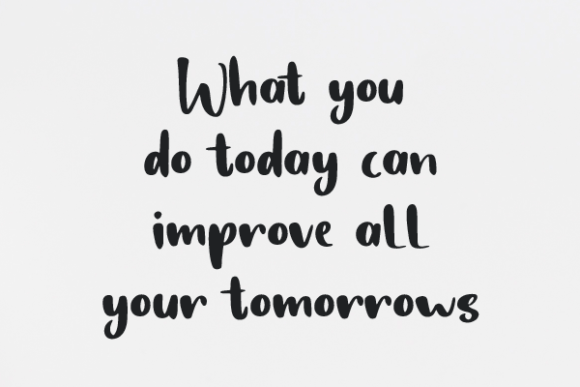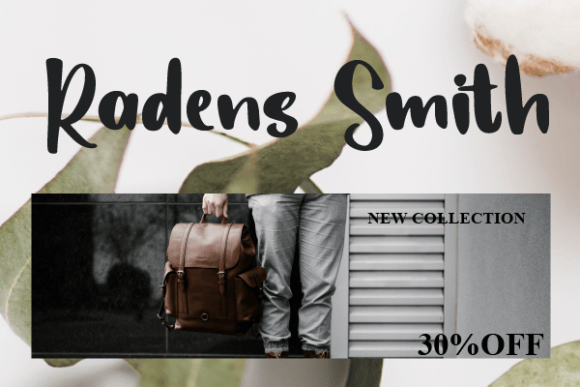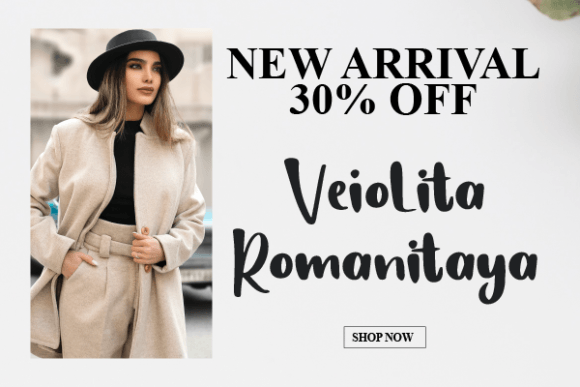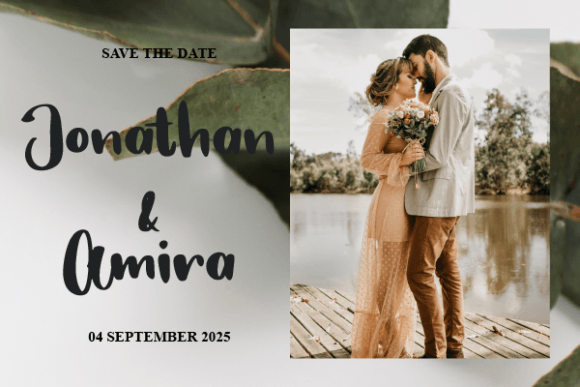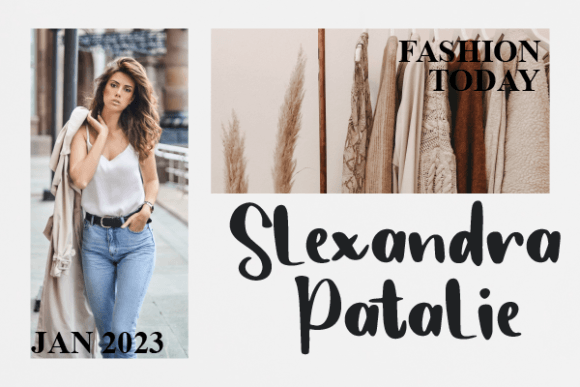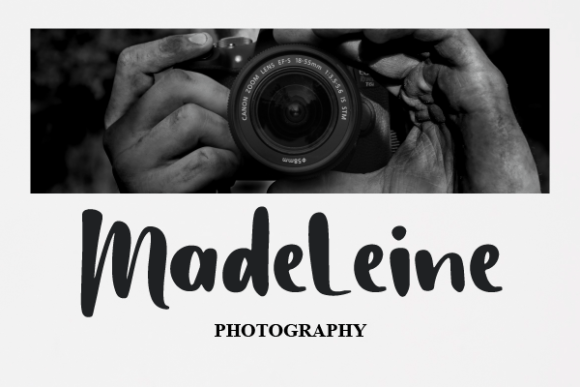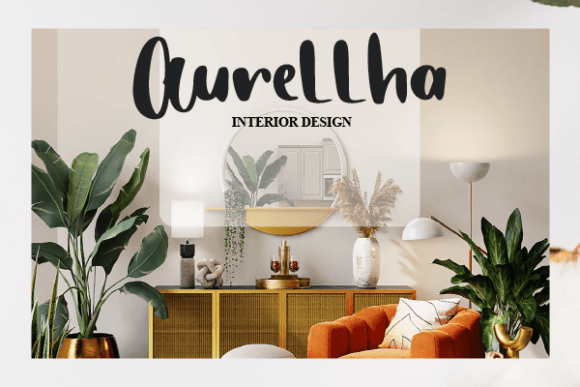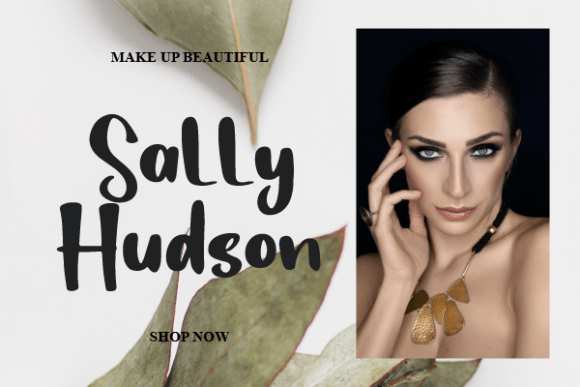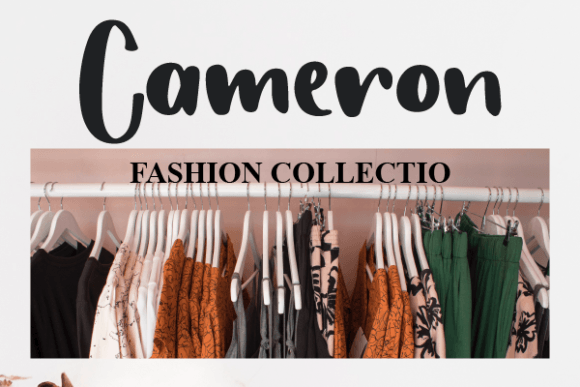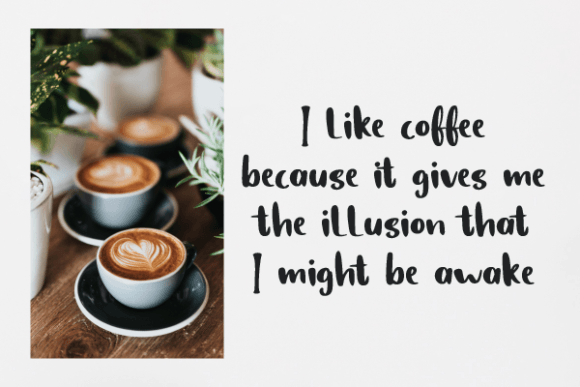
Gregory Hartigan
About Gregory Hartigan
Gregory Hartigan is a stylish and incredibly elegant script font. It looks stunning on wedding invitations, thank you cards, quotes, greeting cards, logos, business cards, and every other design which needs a handwritten touch.